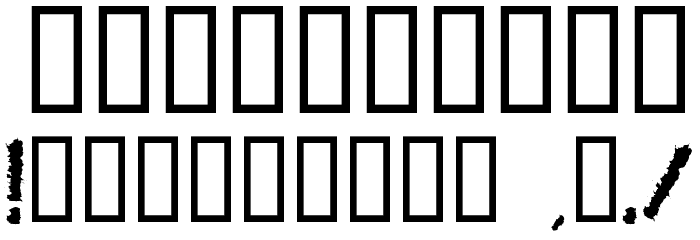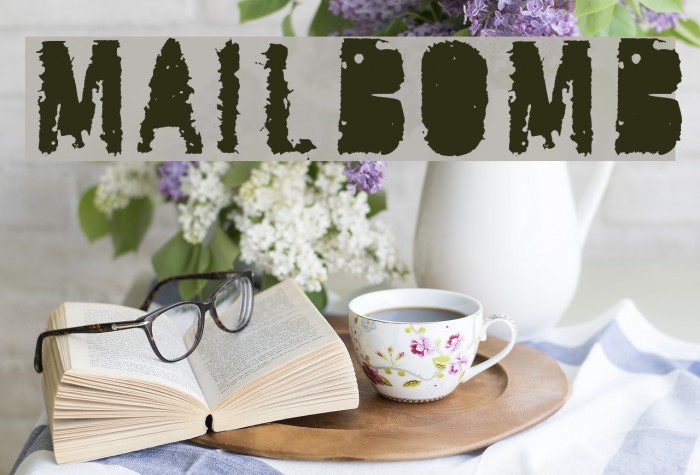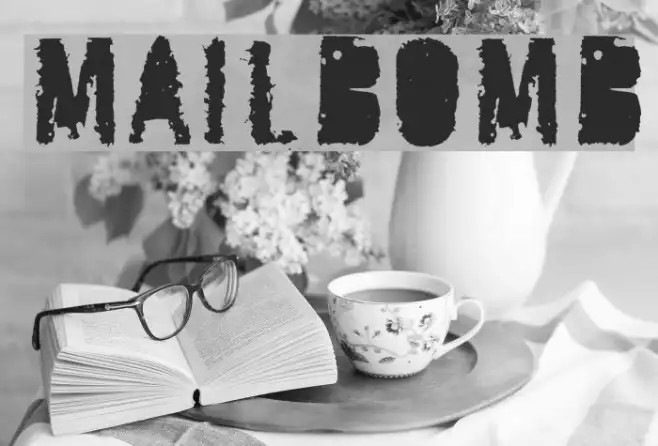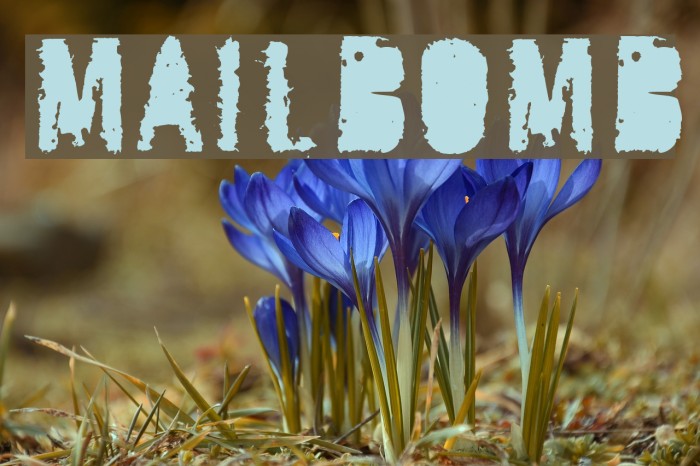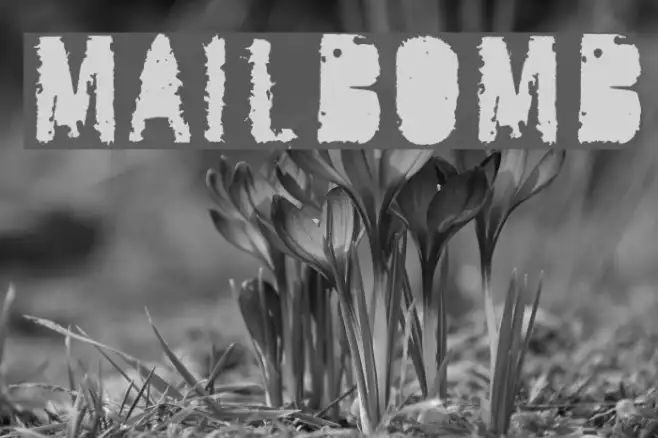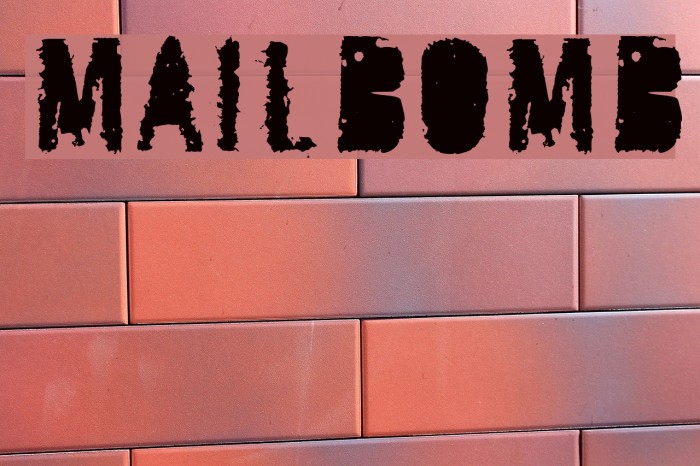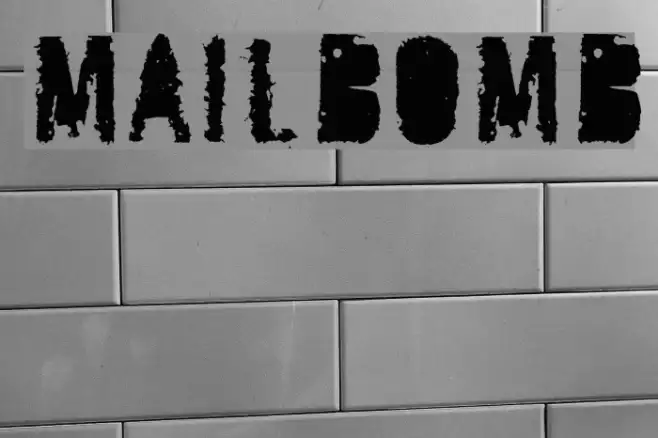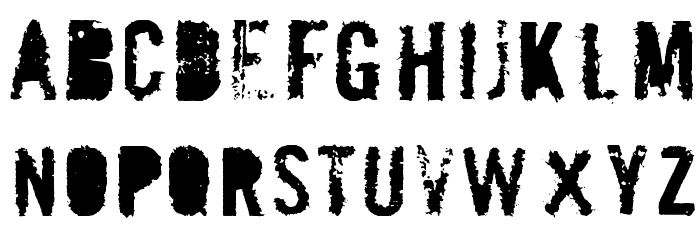
MailBomb Font
This font features a distressed and grungy aesthetic, with a bold and impactful presence. Each character appears as if it has been eroded or splattered, giving it a raw and edgy look. The uppercase letters are particularly striking, with uneven edges and a rough texture that suggests a sense of urgency or rebellion. The font lacks lowercase letters and numbers, focusing solely on uppercase characters and a few punctuation marks. Its unique style makes it stand out, perfect for projects that require a bold statement or a gritty, urban feel.
A bold, distressed font with a grungy, eroded appearance.
• Proposed Projects: Ideal for album covers, posters, streetwear branding, and any design needing a gritty, rebellious edge.
• Category: Decorative/Display
• Weight: Bold
• Width: Normal
• Character Spacing: Normal
• Contrast: High
• Overall Style: Grunge, Urban, Edgy
• Use Case: Headlines, Logos, Posters